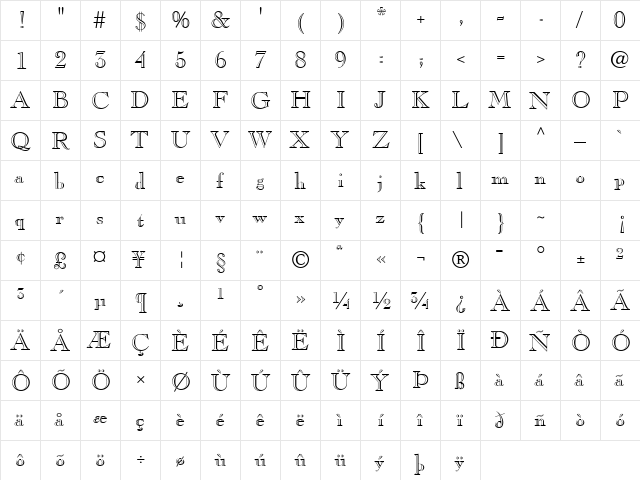
Chopin Open Face
| Style | Open Face |
Design Context for Chopin Typeface
Chopin offers clean, dependable letterforms without strong stylistic allegiance, making it a practical choice for designers who need flexibility.